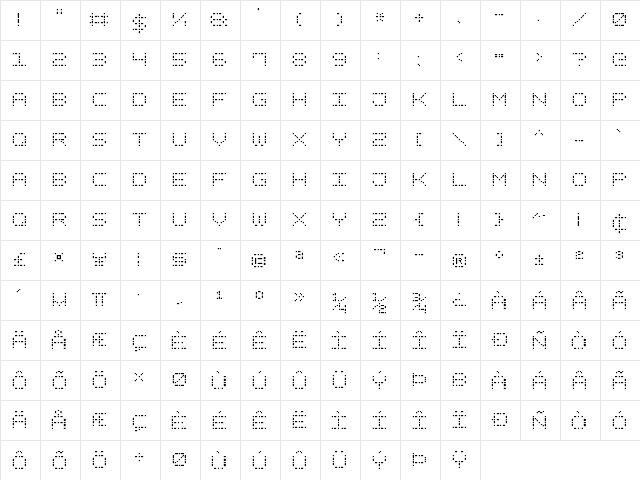
Dash Dot Square-7 Regular
| Foundry | Style-7 |
| Designer | Sizenko Alexander |
Design Context for Dash Dot Square-7 Typeface
Dash Dot Square-7 is rooted in pixel-grid construction, making it a natural fit for game UI, retro computing aesthetics, and digital nostalgia projects.
A natural choice for retro game titles, chiptune music branding, 8-bit UI, and digital nostalgia projects.